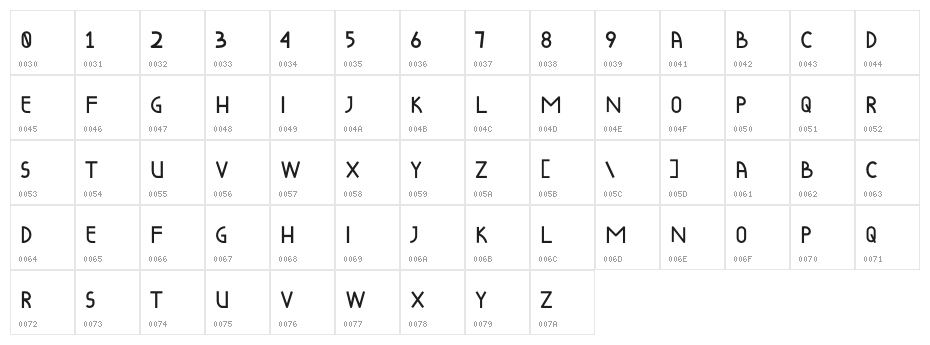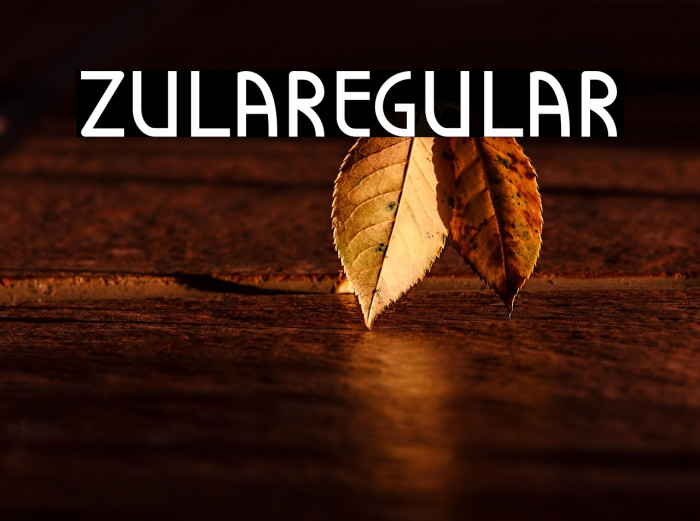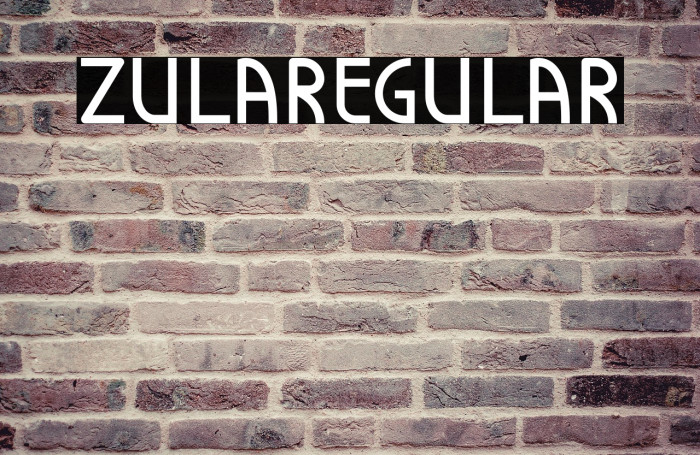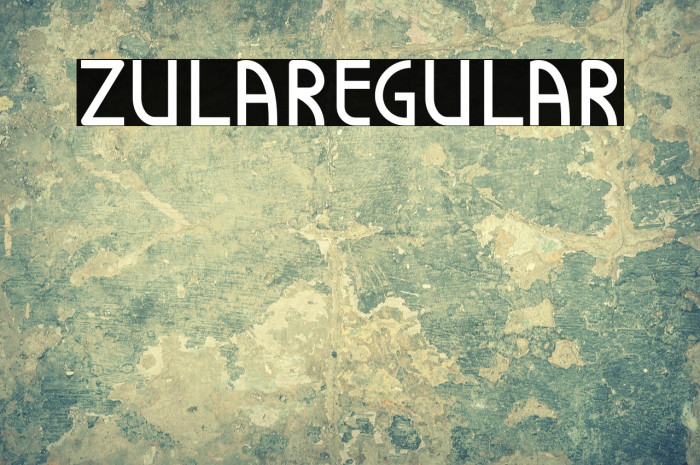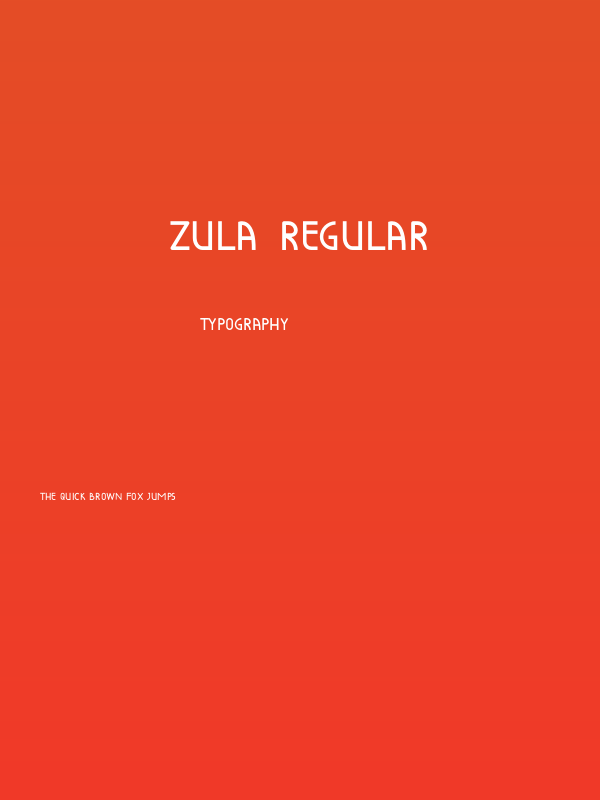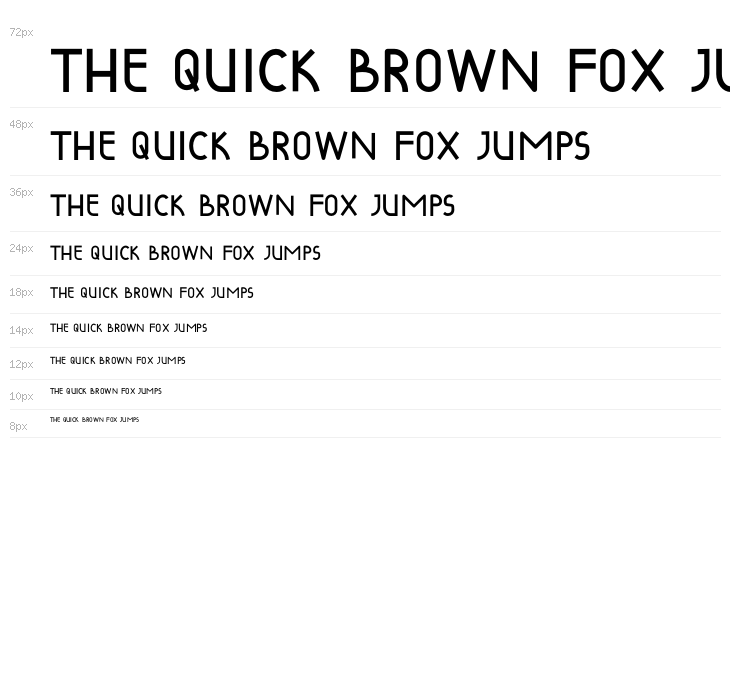
Zula-Regular Font
Zula-Regular Description
This font features a clean and modern sans-serif style with a geometric influence. The characters are uniform in width, providing a balanced and harmonious appearance. The uppercase letters are bold and assertive, while the lowercase letters maintain a consistent height, enhancing readability. The numerals are clear and distinct, making them suitable for various applications. The overall design is sleek and contemporary, with a slight touch of minimalism, making it versatile for both digital and print media.
| Proposed Projects | Ideal for branding, web design, advertising, and editorial layouts where a modern and clean aesthetic is desired. |